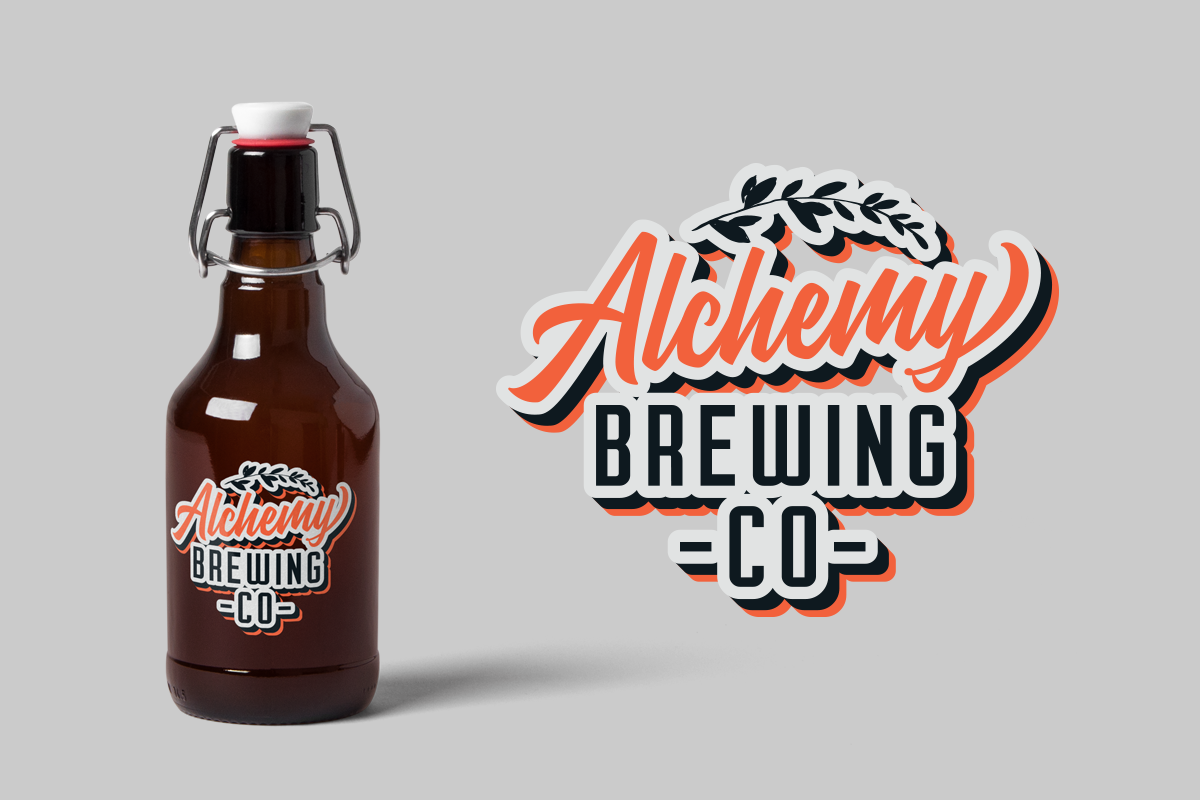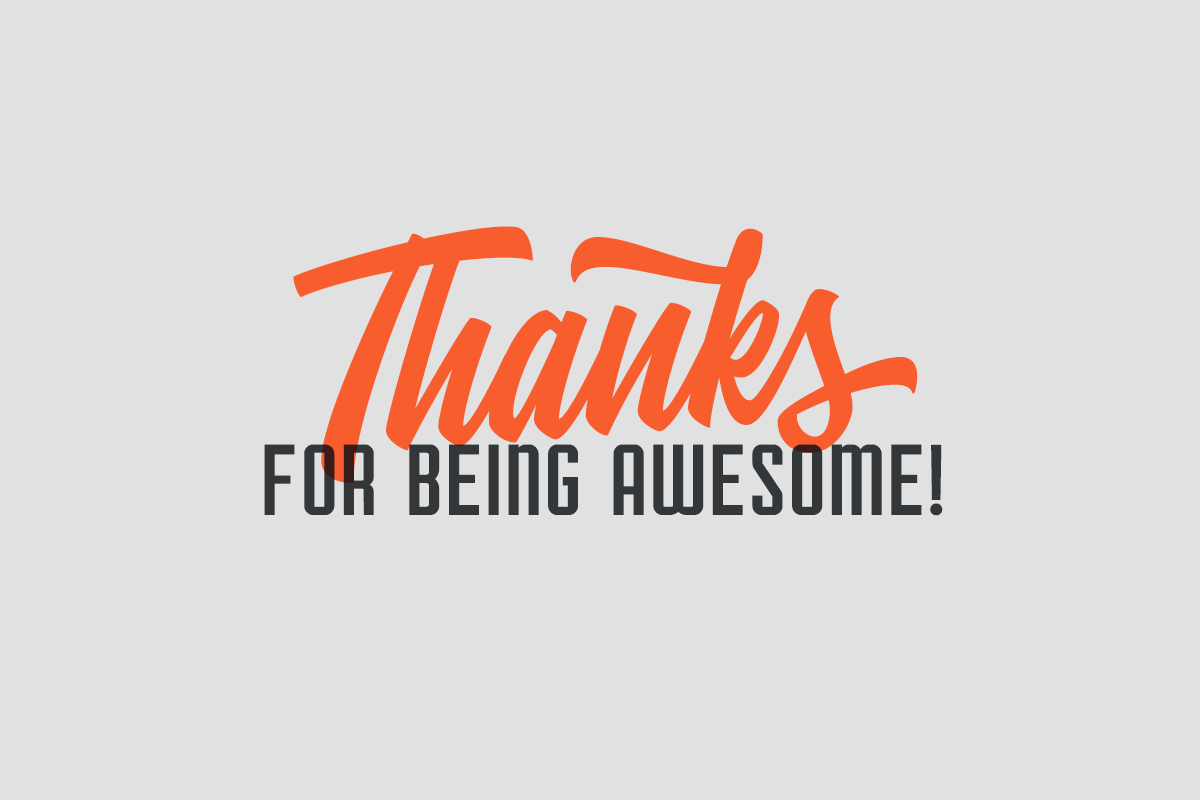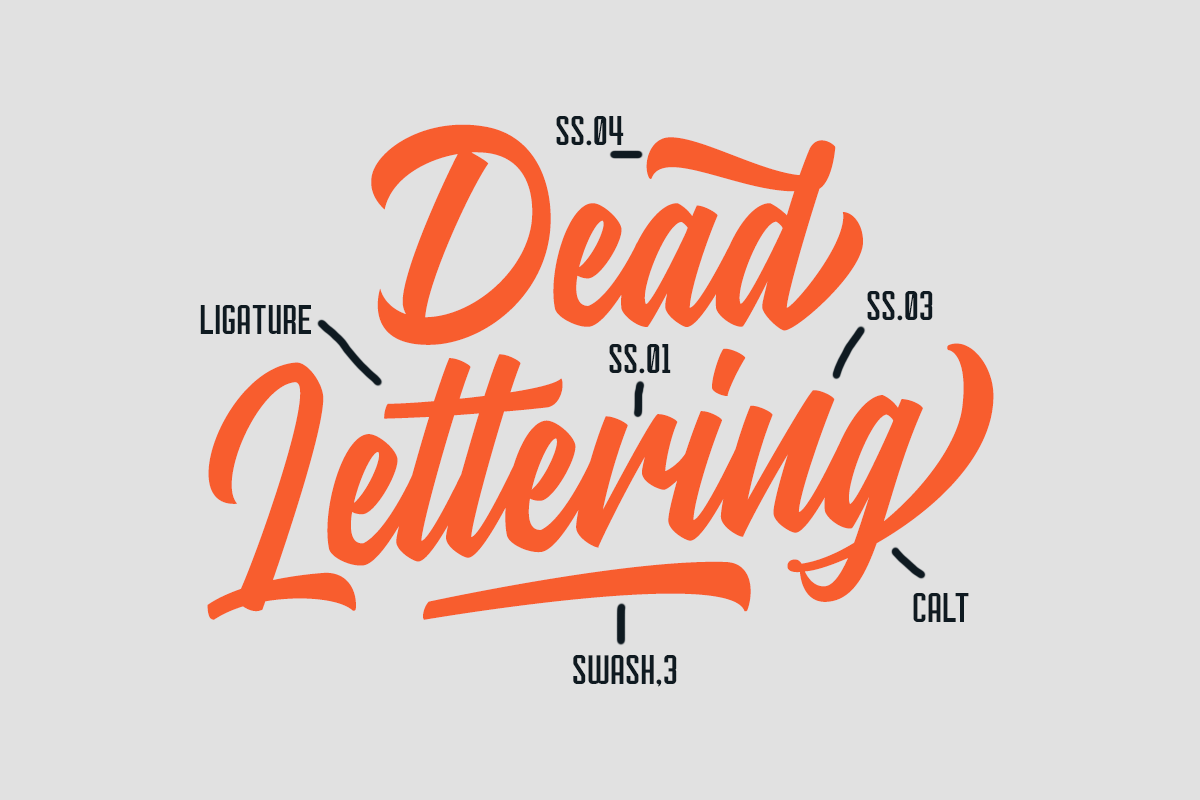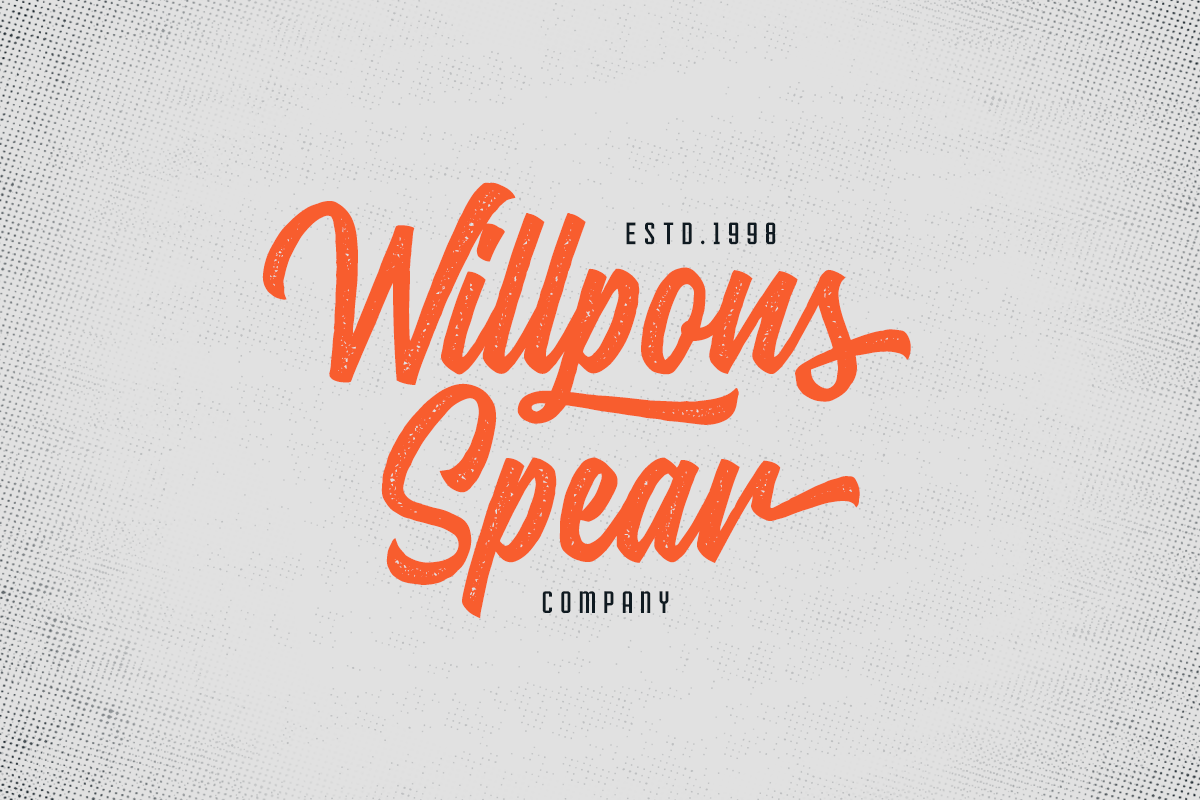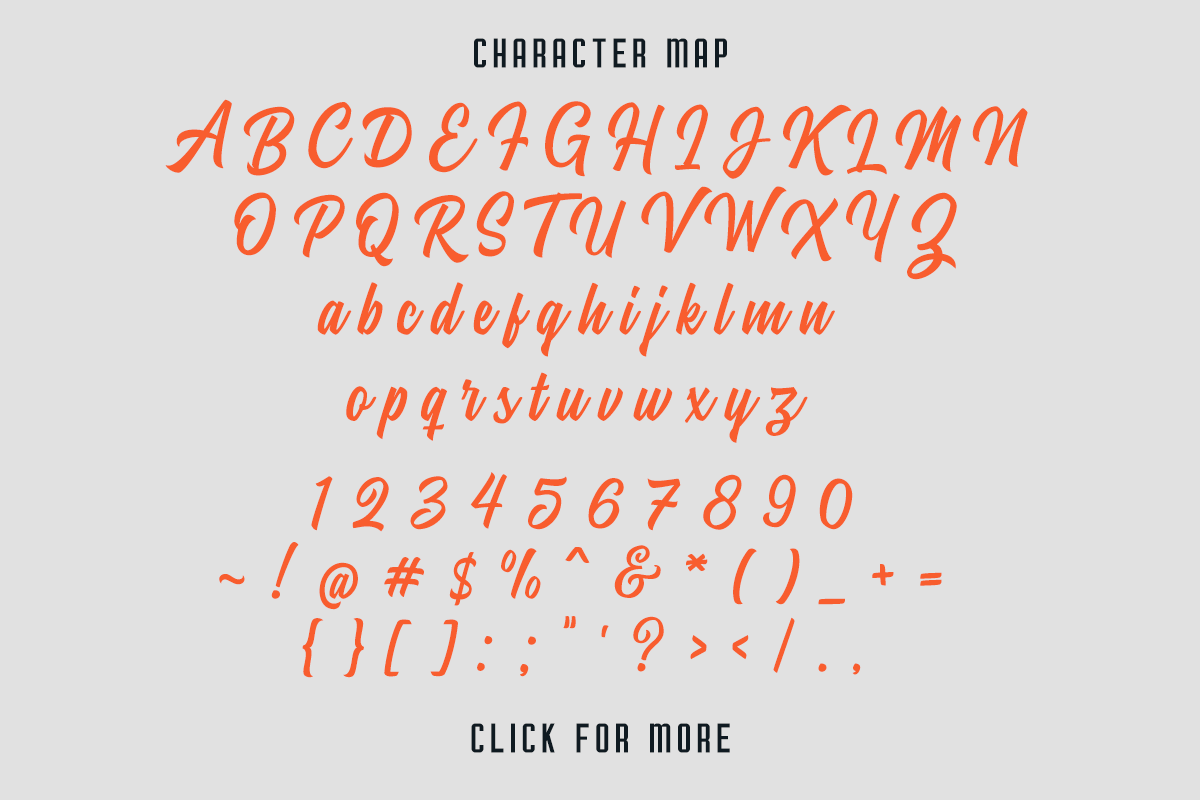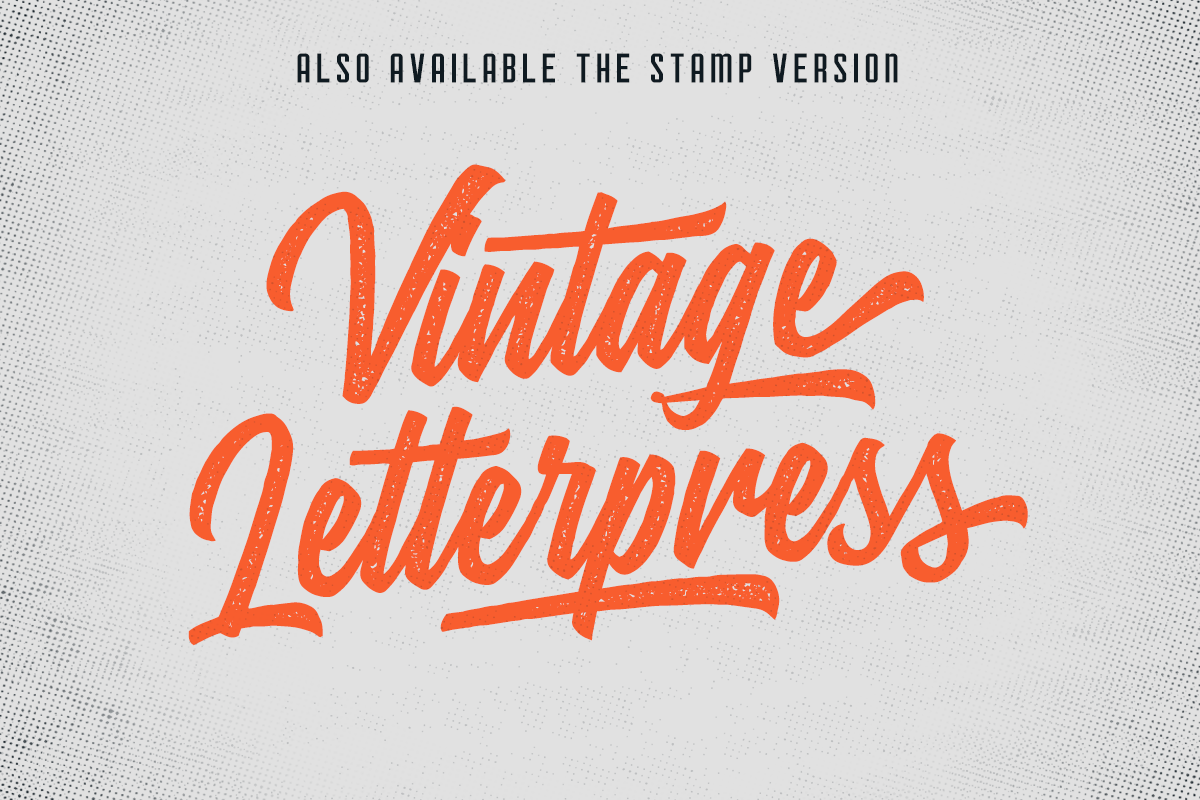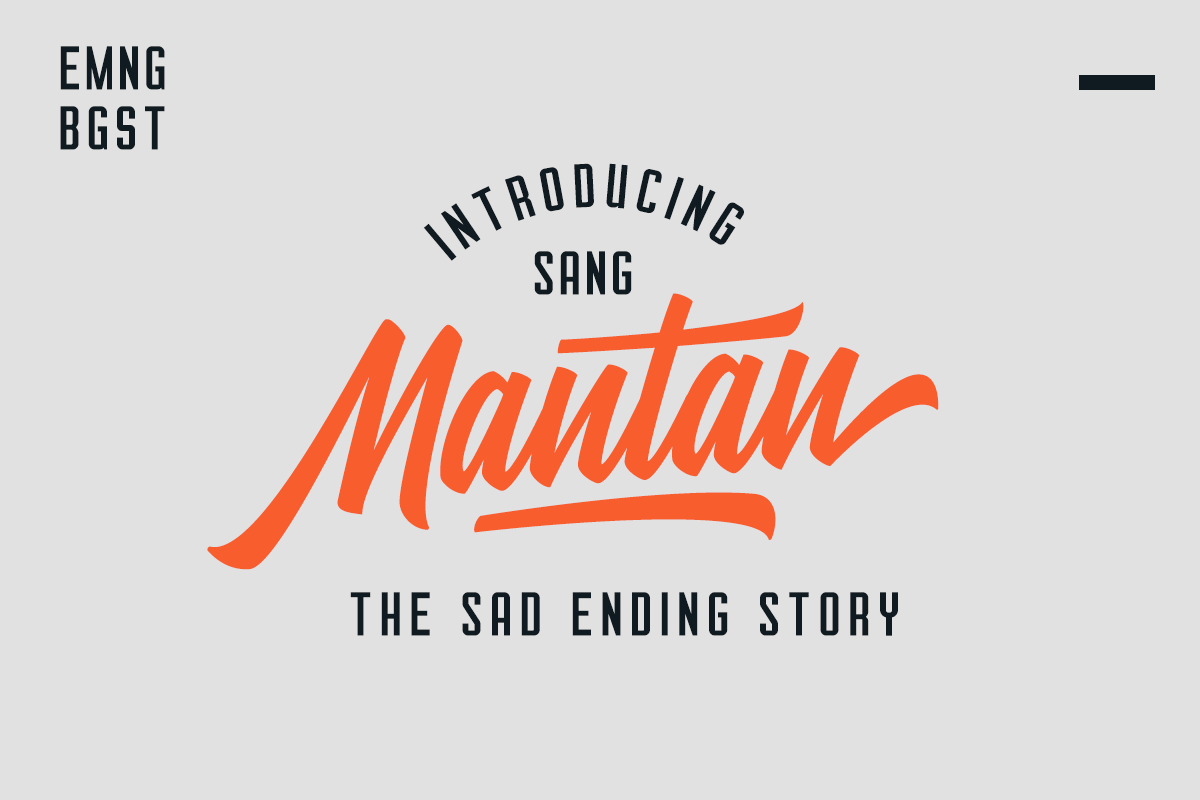
Stanley is a family of TWO script font designed with carefully handcrafted. Also suitable for branding, T-shirt, Wedding Invitation, Vintage Design, Logotype, and any project. With two style make you easier to design everythings, and a sans bonus to make better design.
Multilingual Support support many different languages 20+ .
Special Character Also added some special character you can check in the picture.